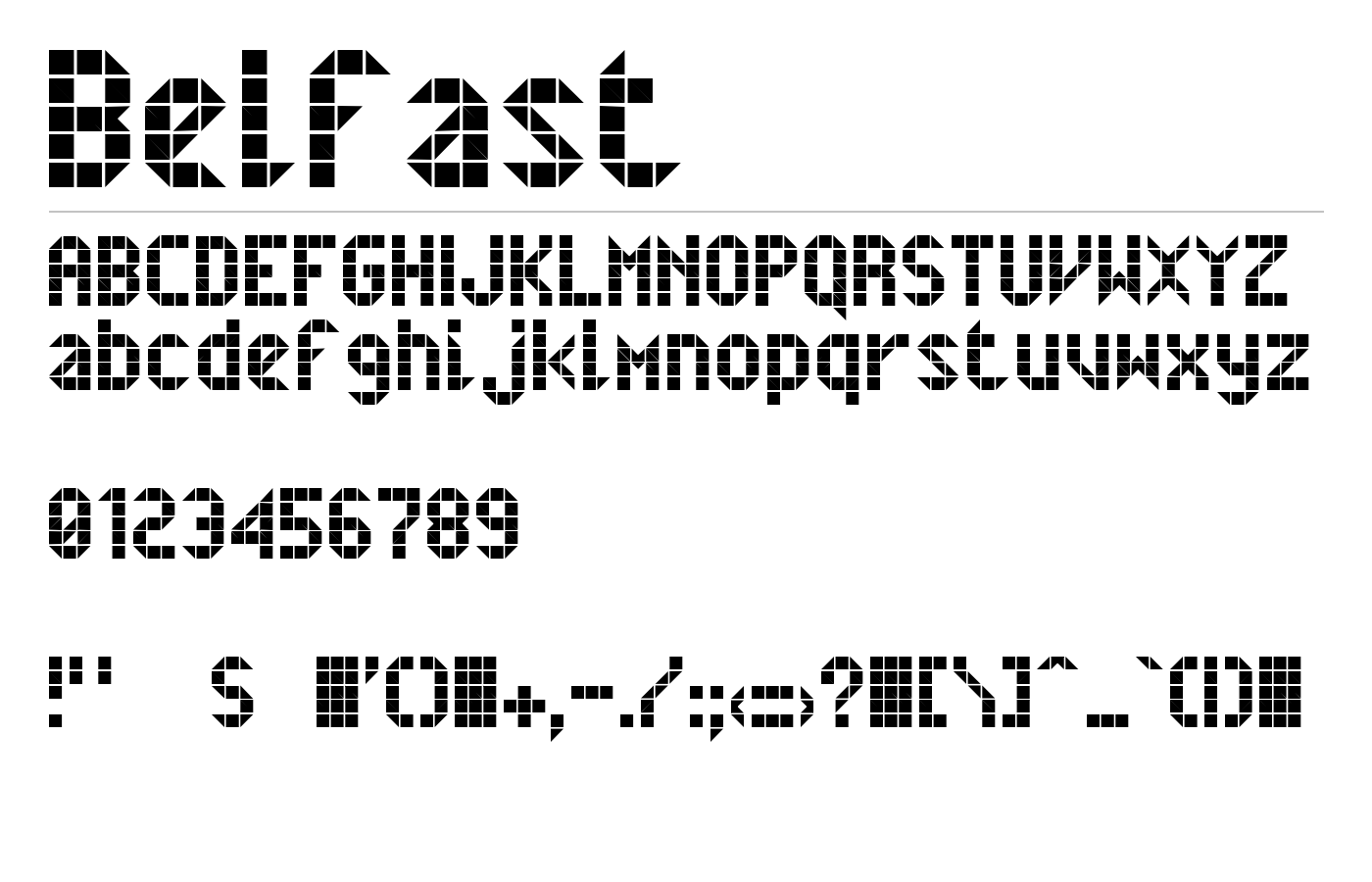
Belfast is a bold, geometric sans serif font characterized by its modular, block-like construction with a distinct grid and triangular cut motifs that create a futuristic, pixelated effect. Its tight spacing and uniform stroke weight give it a modern, tech-inspired personality, making it ideal for digital projects, branding, and headlines where a strong, innovative presence is needed. This font works best in display settings where its unique design can stand out and convey a sense of modernity and precision.
Belfast Font
About Belfast Font
| Font family | Belfast Font |
| Designer | tibo tanguy |